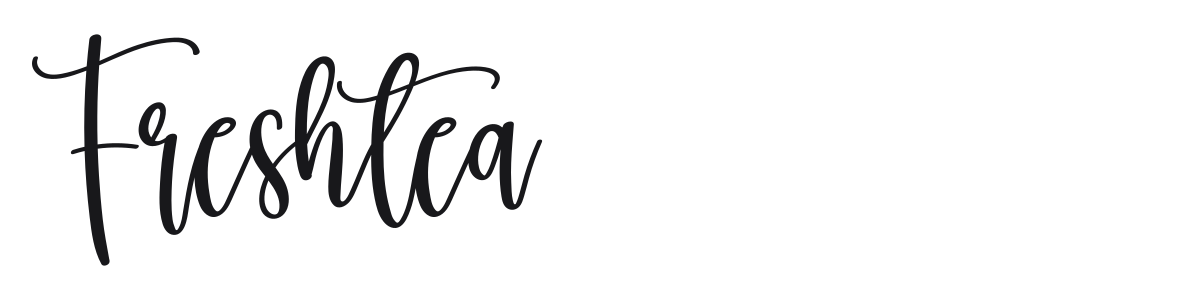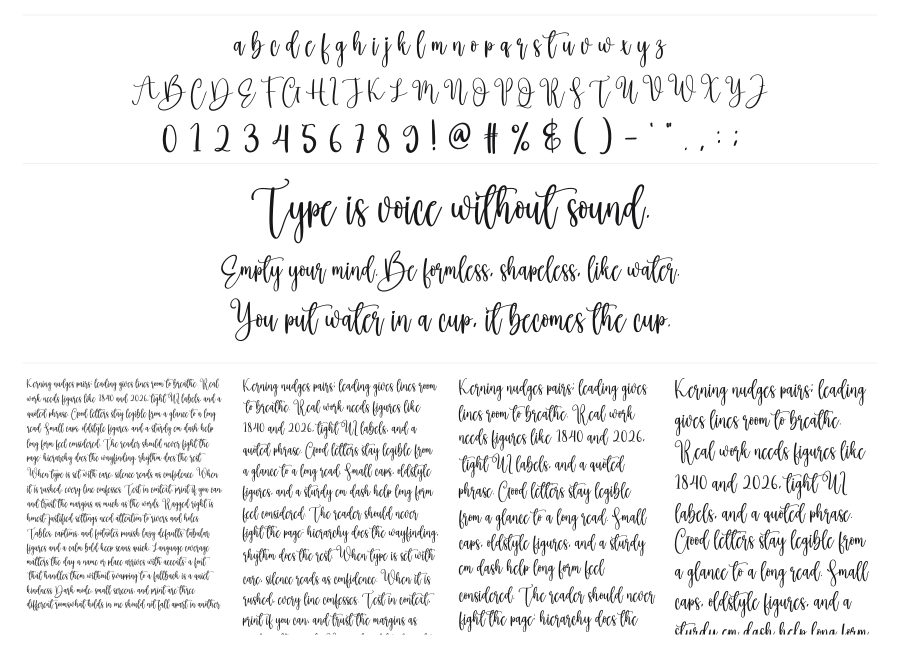
Freshtea
Freshtea is a bouncy casual script with flowing strokes and lively contrast between thick stems and hairline connections. The undulating baseline and looping ascenders give it a spontaneous, handwritten feel that works well on wedding invitations, packaging, and social media graphics. It carries warmth without feeling overly formal.